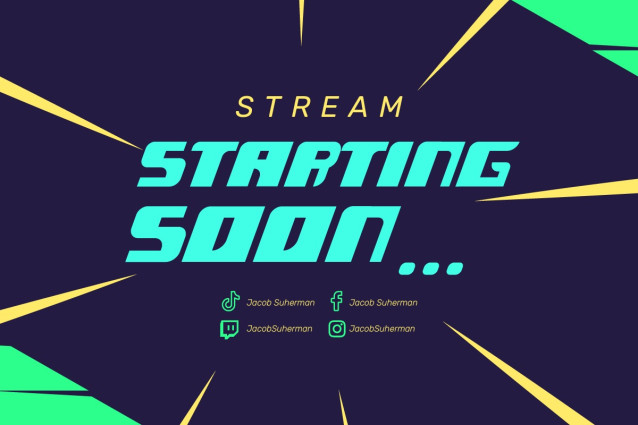
Matrix Display Font
Matrix Display Font, the bold display font that’s perfect for your gaming content! Whether you’re a streamer on Twitch or designing the next big game, Matrix will make your visuals pop with its bold, futuristic style.